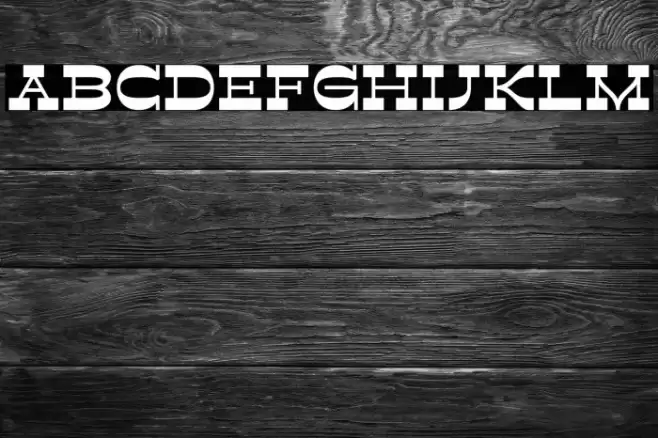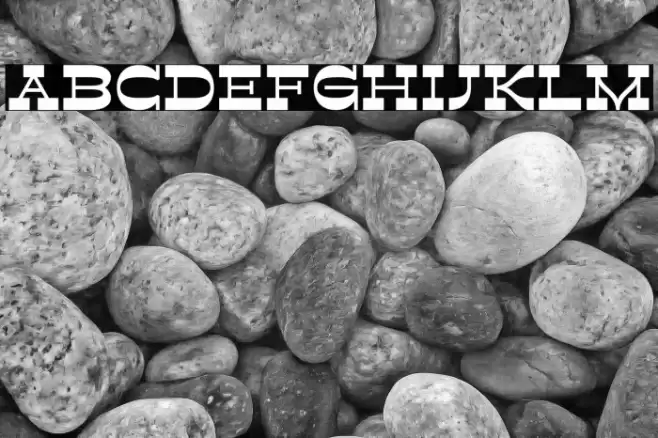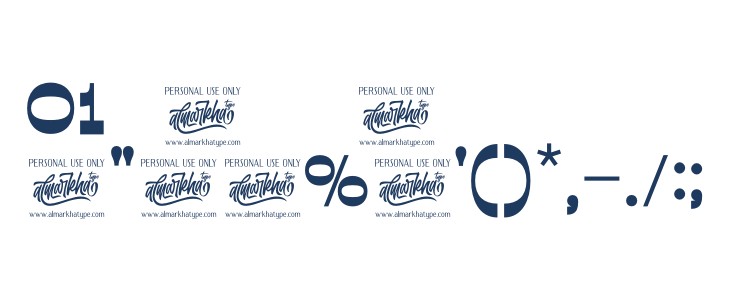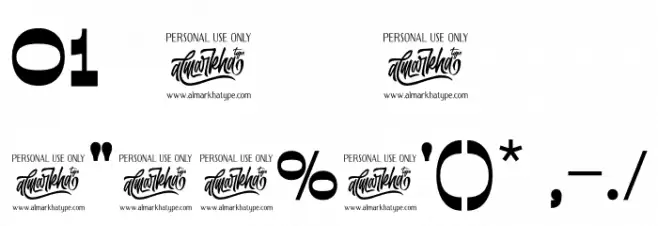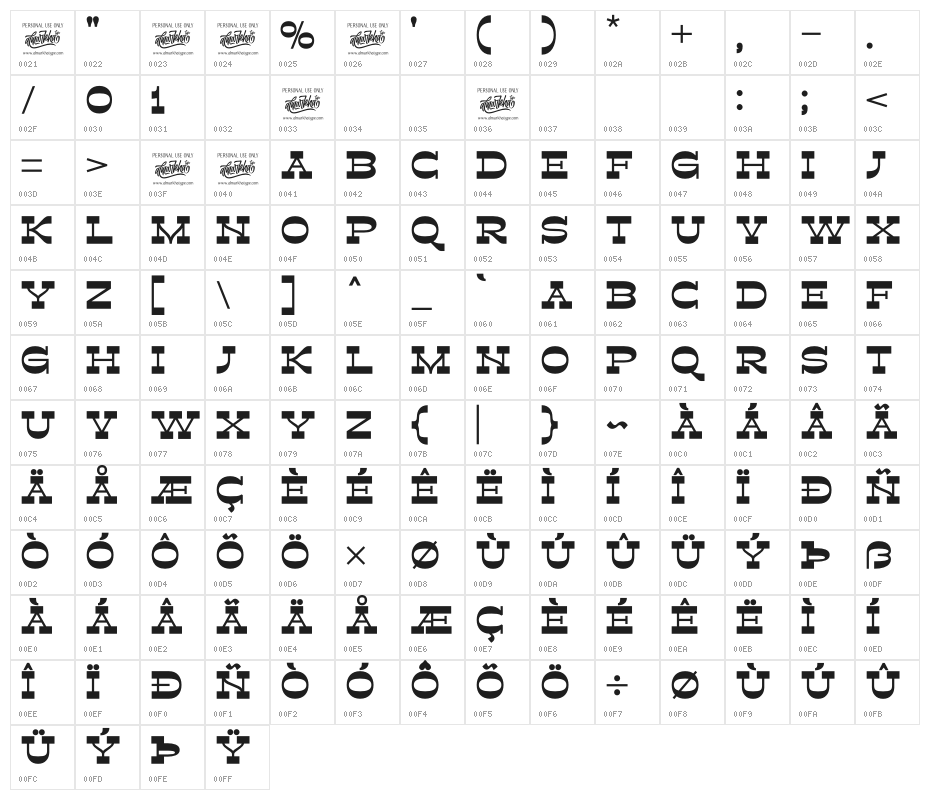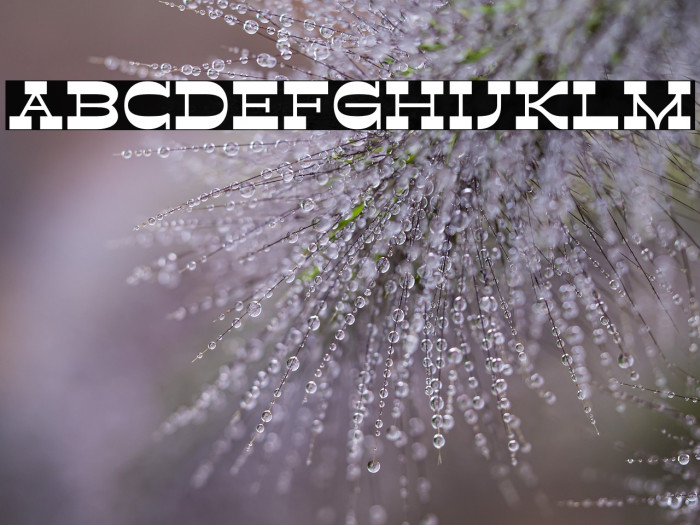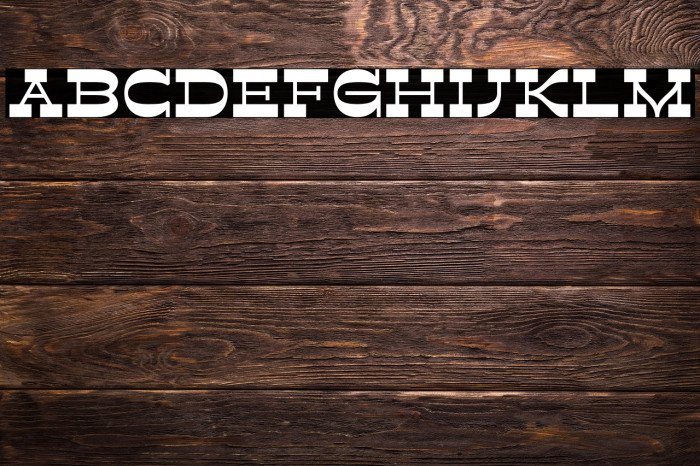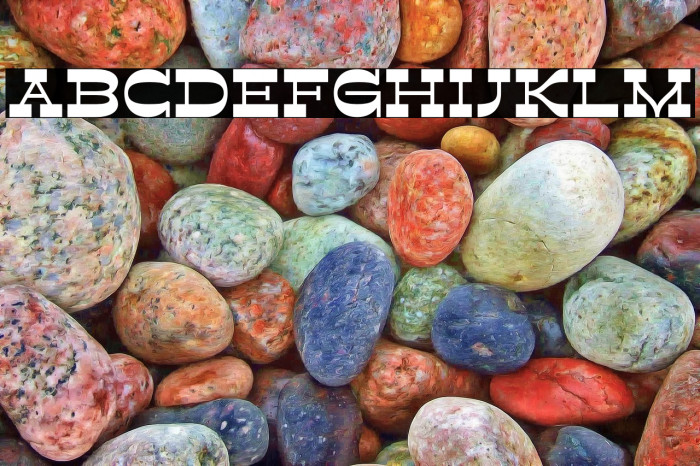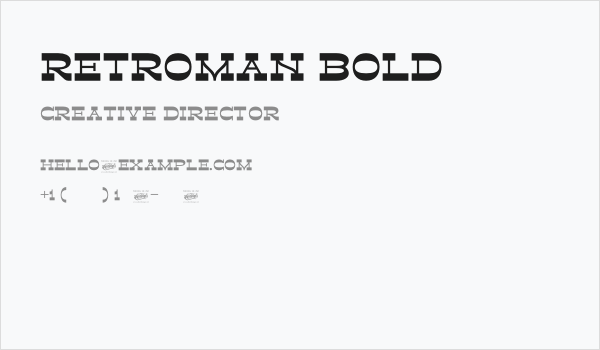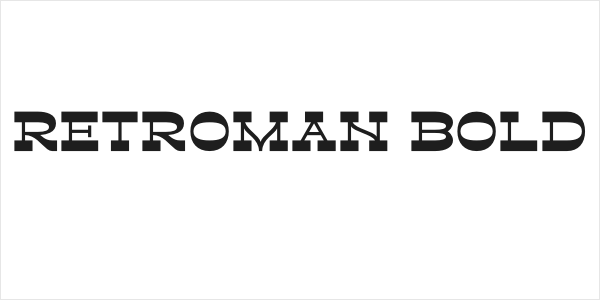
Retroman Bold Font
Retroman Bold Description
This font features a bold and striking design with a strong geometric influence. The characters are crafted with thick, consistent strokes that give a sense of stability and strength. The uppercase letters are particularly prominent, with sharp angles and a modern aesthetic. The lowercase letters maintain the same boldness, ensuring readability and impact. The numerals are equally robust, fitting seamlessly with the overall design. Special characters are included, matching the bold style and enhancing the font's versatility. This font is ideal for projects that require a strong visual presence.
A bold, geometric font with strong, consistent strokes and a modern aesthetic from Uncategorized fonts.
- Font: Retroman Bold